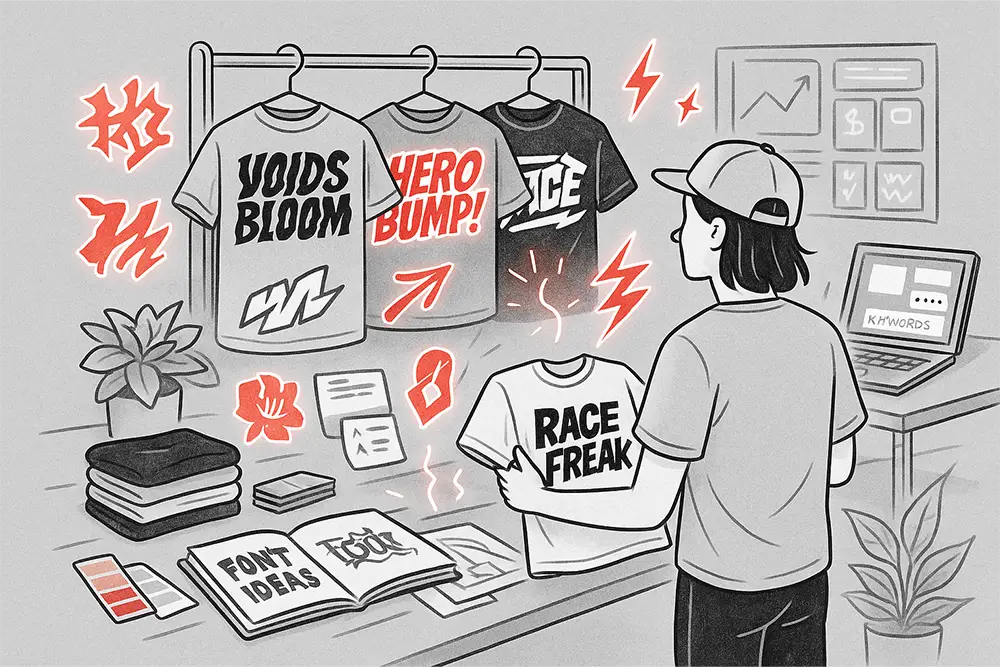
You’re creating epic T-shirt designs. You’ve got the concept, the colors, and the mockups. But your sales? Still stuck in limbo.
Here’s the brutal truth most POD sellers ignore:
Fonts aren’t just text—they’re emotion, identity, and conversion power. The right font can turn a casual scroller into a buyer. The wrong one? A bounce.
That’s why in this 2025 guide, we’re spotlighting the best fonts for T-shirt design that actually sell—fonts that don’t just look good, but convert. Whether you’re a POD designer, freelancer, or brand owner, this article will help you pick typefaces that make your designs fly off the (virtual) shelves.
Not every stylish font brings sales. Here’s what the top-selling fonts this year have in common:
A font on a T-shirt should be easy to read, even in a thumbnail. No one wants customers squinting.
From funny quotes to motivational messages, fonts need to match the vibe. Comic fonts scream fun. Brush fonts shout passion. Racing fonts? Adrenaline.
You want fonts that match current design trends (Y2K, bold graphics, graffiti, etc.) but also won’t look outdated in 6 months.
According to 99designs’ guide on top font trends, bold retro fonts, brush styles, and comic-inspired typography are leading 2025’s visual language—especially in apparel and print.
Here’s our expert-picked selection of high-performing fonts that are making serious impact in the POD world:
If you’re creating streetwear, edgy slogans, or urban-style merch, Voids Bloom is your go-to.
This comic graffiti hybrid has just enough chaos to feel real—and just enough clarity to still sell.
Hero Bump! turns your text into a shout. It’s made for punchy, energetic quotes or pop-culture references.
Ideal for creators making superhero, retro, or meme-style tees.
Got a motorsport audience? Car enthusiasts? Use Race Freak to convey motion, adrenaline, and boldness.
Script doesn’t mean soft. The Rughton delivers a masculine, aggressive brush style that adds emotion and authenticity to quotes, sports merch, and urban lifestyle tees.
Need something fun, cute, and universally lovable? Magic Dreams is a favorite among lifestyle brands and family-focused merch.
In the world of POD, font isn’t just typography. It’s sales psychology.
When we were refining font choices for our newest bundle, one insight hit hard:
“People buy feelings, not just designs.” — Simon Sinek, Start with Why
That’s why the fonts above were selected—not just for visual flair, but emotional conversion.
In a crowded marketplace, fonts are your silent sales pitch. And in 2025, the louder that pitch speaks to your niche? The better you sell.
The market’s crowded, but there’s room at the top for designs that feel right.
And the fastest way to feel right is to use the fonts that actually sell.